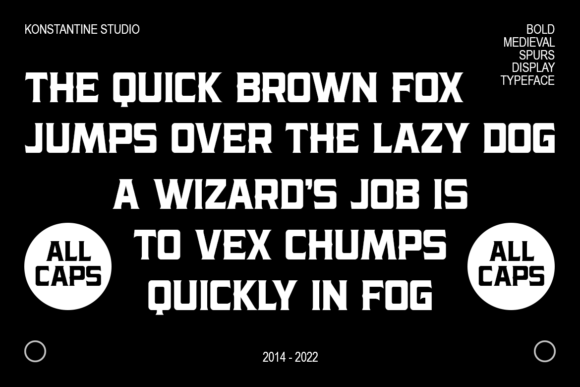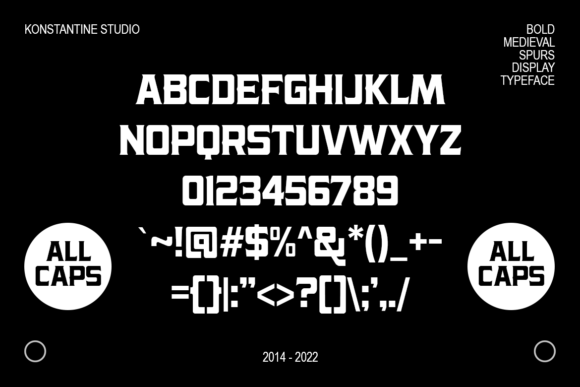
Introduction to Bekstap Font
Have you ever stumbled upon a design that just stops you in your tracks, making you wonder how the designer achieved that perfect balance of elegance and boldness? For me, it’s often the typography that makes all the difference. Recently, I came across the Bekstap Font, and I’m still in awe of its unique blend of vintage and modern elements.
Key Features of Bekstap Font
- High-quality design: Bekstap Font offers crisp and clear typography perfect for creative projects.
- Transparent background: The font’s transparent background allows for seamless integration with various design elements.
- High-resolution design: The font is designed at 300 DPI, making it suitable for high-quality prints and digital displays.
- Unique characteristics: Bekstap Font features a unique blend of modern and vintage elements, making it an excellent choice for creative projects.
- Perfect for creative projects: With its high-quality design and versatile nature, Bekstap Font is ideal for use in logos, branding, and other design applications.
Honest Review: Bekstap Font
I recently came across the Bekstap Font and was excited to give it a try. As a designer, I’m always on the lookout for high-quality design resources that can elevate my creative projects.
One of the things that stands out about the Bekstap Font is its sleek and modern design. It’s perfect for any project that requires a clean and professional look. I love how versatile it is – it works well for both print and digital projects.
Here are some of the things that I like about the Bekstap Font:
- ✨ Transparent background, which makes it easy to customize and use with any design
- ✨ High-quality design that’s perfect for any creative project
However, I do have to mention a few limitations:
- ⚠️ Limited character set, which may not be suitable for longer texts
- ⚠️ Not ideal for projects that require a lot of bold or italic text
Overall, I’m really impressed with the Bekstap Font. It’s a great addition to any designer’s toolkit and is sure to add a touch of sophistication to any creative project. With a little creativity, it’s easy to work around its limitations and get the most out of this fantastic font.
Tips for Getting the Most Out of Bekstap Font
Experiment with different font sizes, colors, and styles to create visually appealing designs. Use the Bekstap Font in combination with other design elements, such as images and graphics, to create a cohesive and engaging visual identity.
The Bekstap Font is suitable for a wide range of creative projects, including branding, advertising, and digital marketing. Its high-quality design and transparent background make it an excellent choice for designers and non-designers alike.